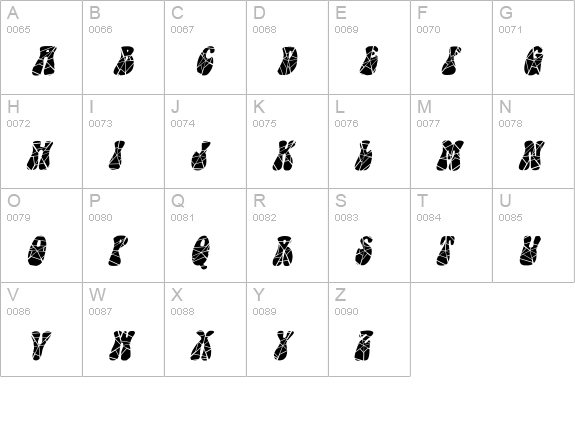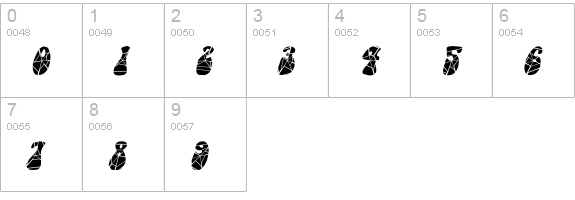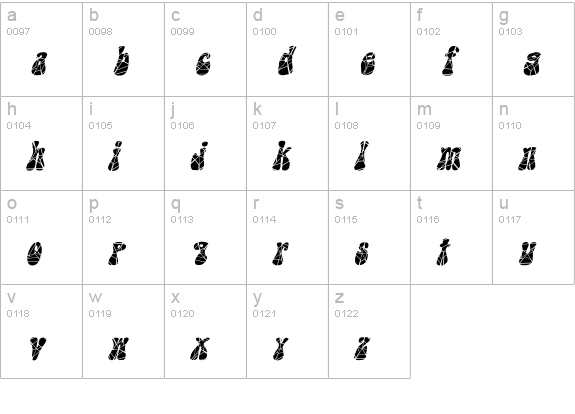
GrooveyCracked Italic Font Details
GrooveyCracked Italic is a distinctive, italic variant in the GrooveyCracked typeface family \xE2\x80\x94 well suited to design and typography projects.
GrooveyCracked Italic font is a unique and eye-catching typeface that combines a modern cracked design with a playful groove. Its italicized style adds a touch of elegance and sophistication to any project. Perfect for posters, branding, headlines, and more, this font is sure to make a statement. The best part is that GrooveyCracked Italic font is completely free to download at FontsMarket.com. Don't miss out on this fantastic opportunity to enhance your designs with this striking and versatile typeface. Get your hands on GrooveyCracked Italic font today and let your creativity shine!